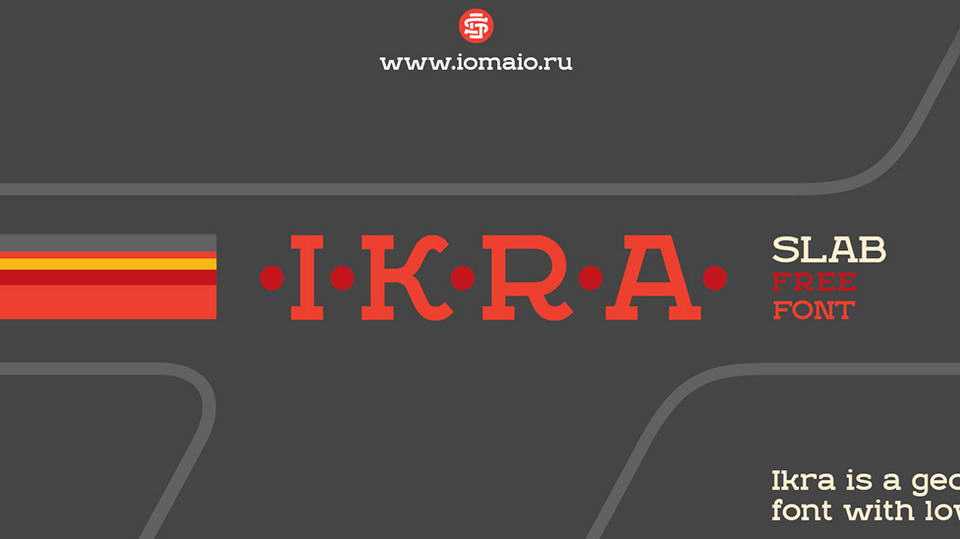
Download Ikra font, a geometric slab serif typeface with low contrast. Recommend for use Ikra font in identity, headlines and information design.
Designer: Sergei Godovalov